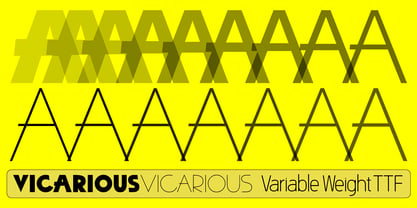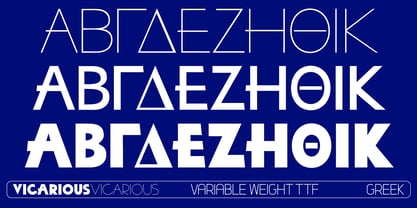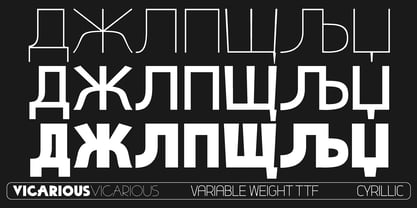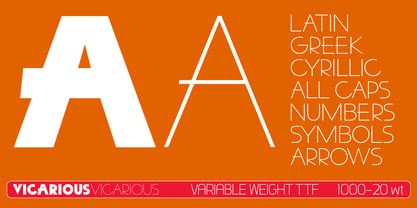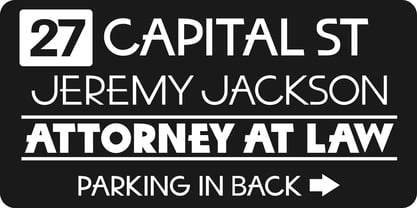
Vicarious
by Settled Font Foundry
The Vicarious Font Family was designed by Gary Jaffe and published by Settled Font Foundry. Vicarious contains 1 styles. More about this family
Vicarious is a variable weight font, with extremes at 20 pt and 1000 pt weights. The font includes Latin, Greek and Cyrillic glyphs, in addition to two sizes of digits, math and monetary glyphs, punctuation, and variable weight arrows. Purchasing one font yields so many variations.
Vicarious is best suitably-used as a display font. It works well as a signage font. It is all caps, with font-mapping to the lower case keys.
Vicarious has a geometric, modern look. It was designed with both usefulness and beauty in mind. May Vicarious bring the user and the observer prosperity and joy.